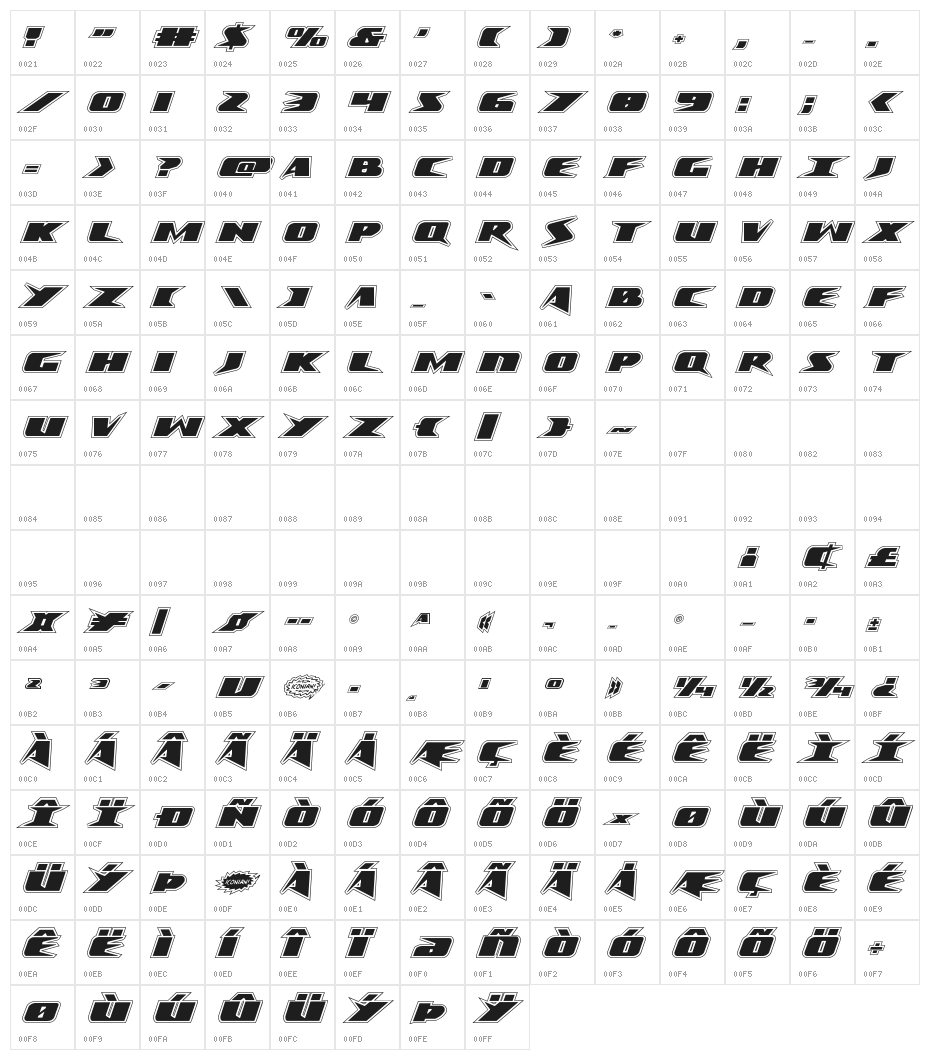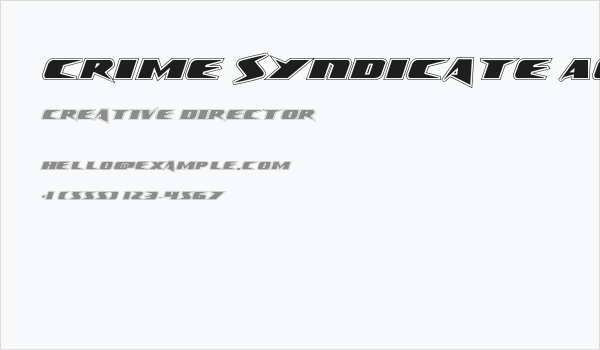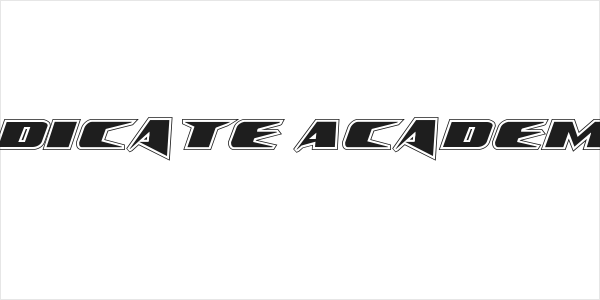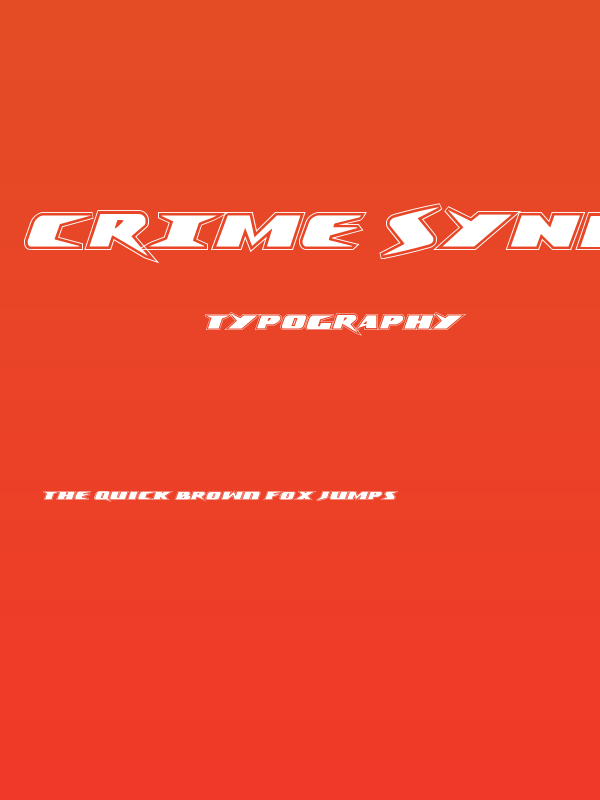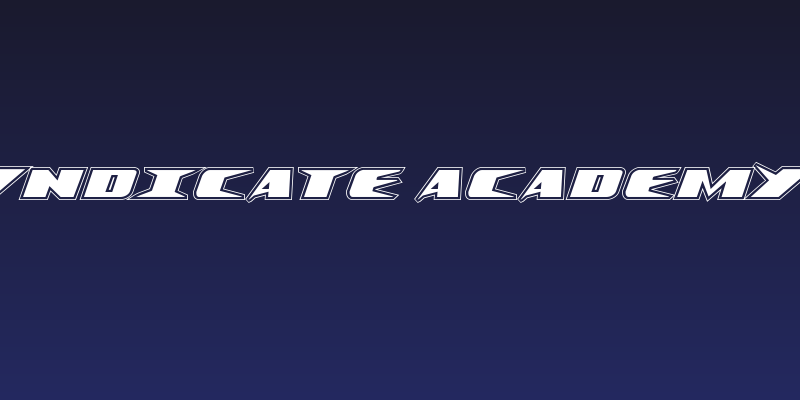
Crime Syndicate Academy Regular Font
Crime Syndicate Academy Regular Description
This font features a bold, dynamic style with sharp, angular edges and a futuristic aesthetic. The characters are designed with a strong emphasis on geometric shapes, giving them a modern and edgy appearance. The uppercase and lowercase letters maintain a consistent style, with the uppercase letters being particularly striking due to their boldness and unique design elements. The numbers and special characters follow the same design principles, ensuring a cohesive look across all glyphs. The font's thick strokes and sharp angles make it highly legible while also adding a sense of movement and energy.
| Proposed Projects | Ideal for video game titles, movie posters, sports branding, and any project requiring a modern, edgy look. |